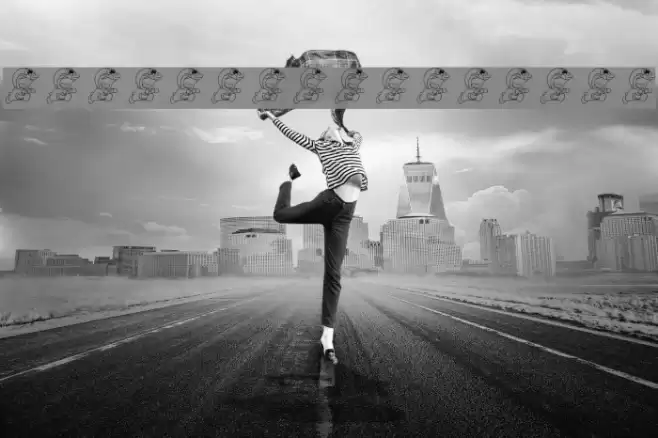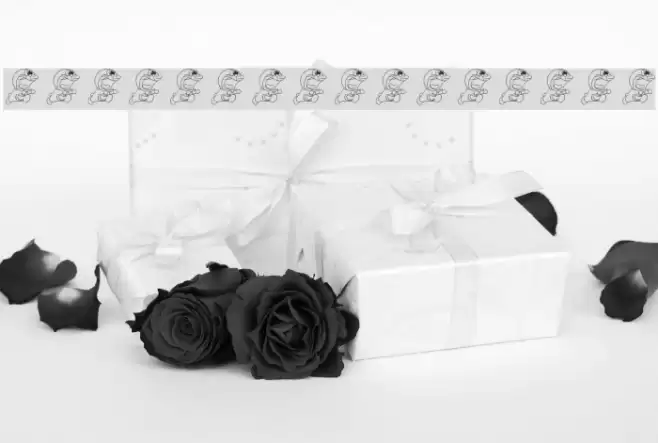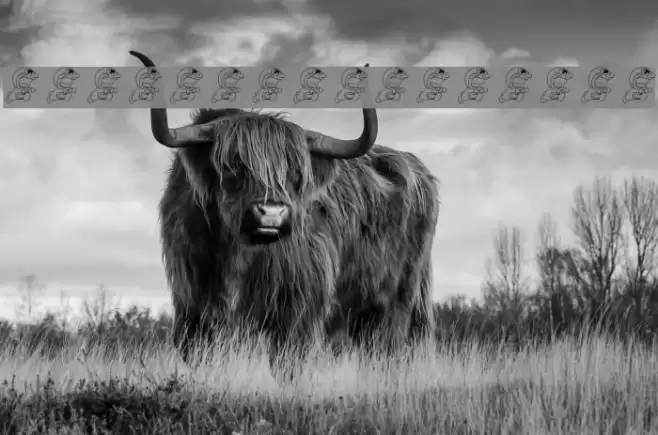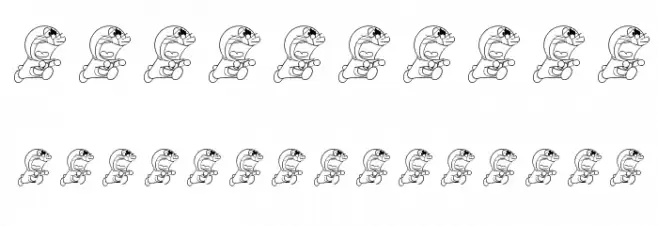
Doraemon-slalala Font
Doraemon-slalala Description
This image contains repeated cartoon character illustrations rather than a traditional font with alphanumeric or symbol glyphs. The characters are consistent in style and line weight, but do not represent a typeface.
Not a valid font; consists of repeated cartoon illustrations from Uncategorized fonts.
- Overall Style: Illustrative, Cartoon